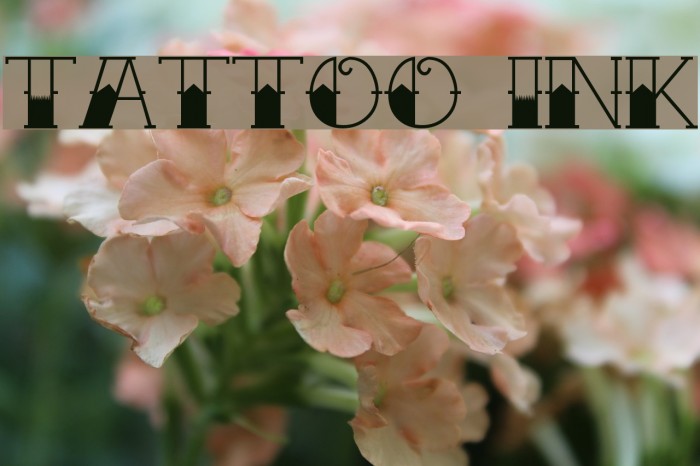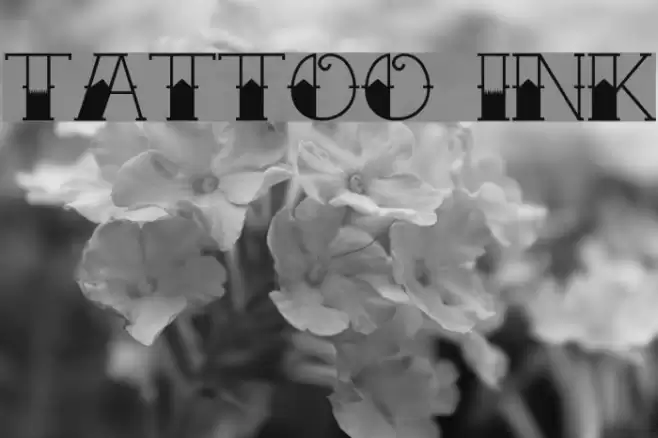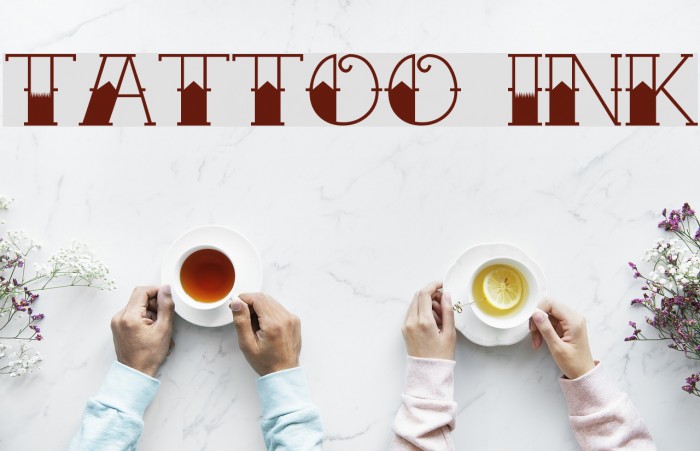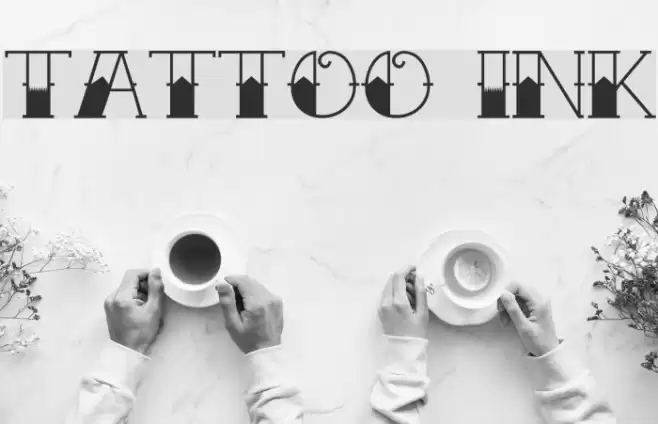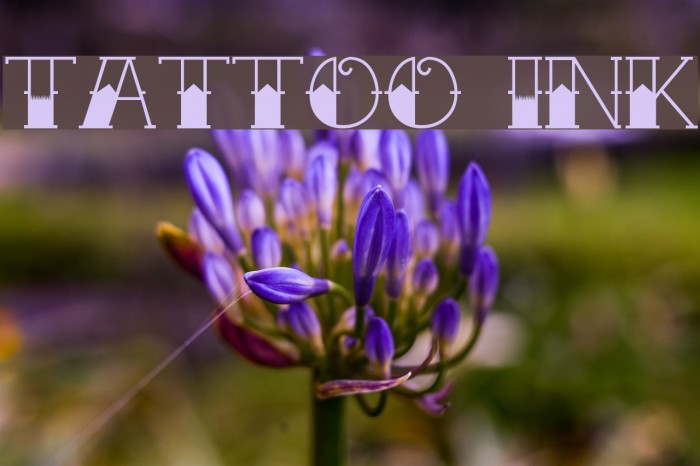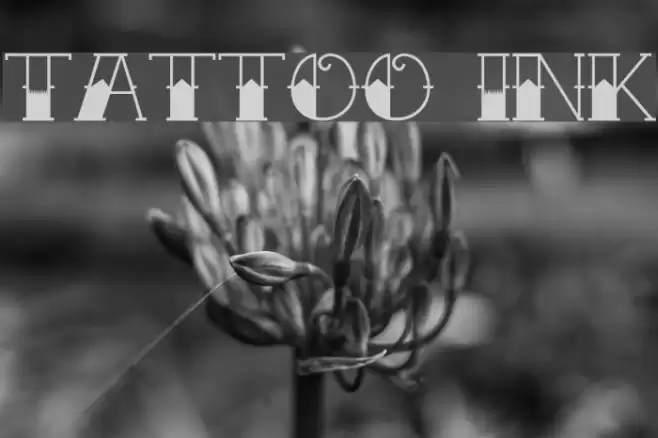
Tattoo Ink Font
Tattoo Ink Description
This font features a bold, decorative style with a unique stencil-like appearance. The characters are designed with thick vertical strokes and thin horizontal lines, creating a striking contrast. The geometric shapes within each letter add an industrial and modern feel, making it stand out. The uppercase letters are particularly bold, while the lowercase letters maintain the same stylistic elements, ensuring consistency across the typeface. The font's design is reminiscent of urban street art or tattoo designs, with a strong emphasis on visual impact.
A bold, decorative font with a stencil-like, industrial design from Outline fonts.
• Proposed Projects: Ideal for tattoo designs, urban-themed posters, branding for edgy products, or any project requiring a bold, artistic statement.